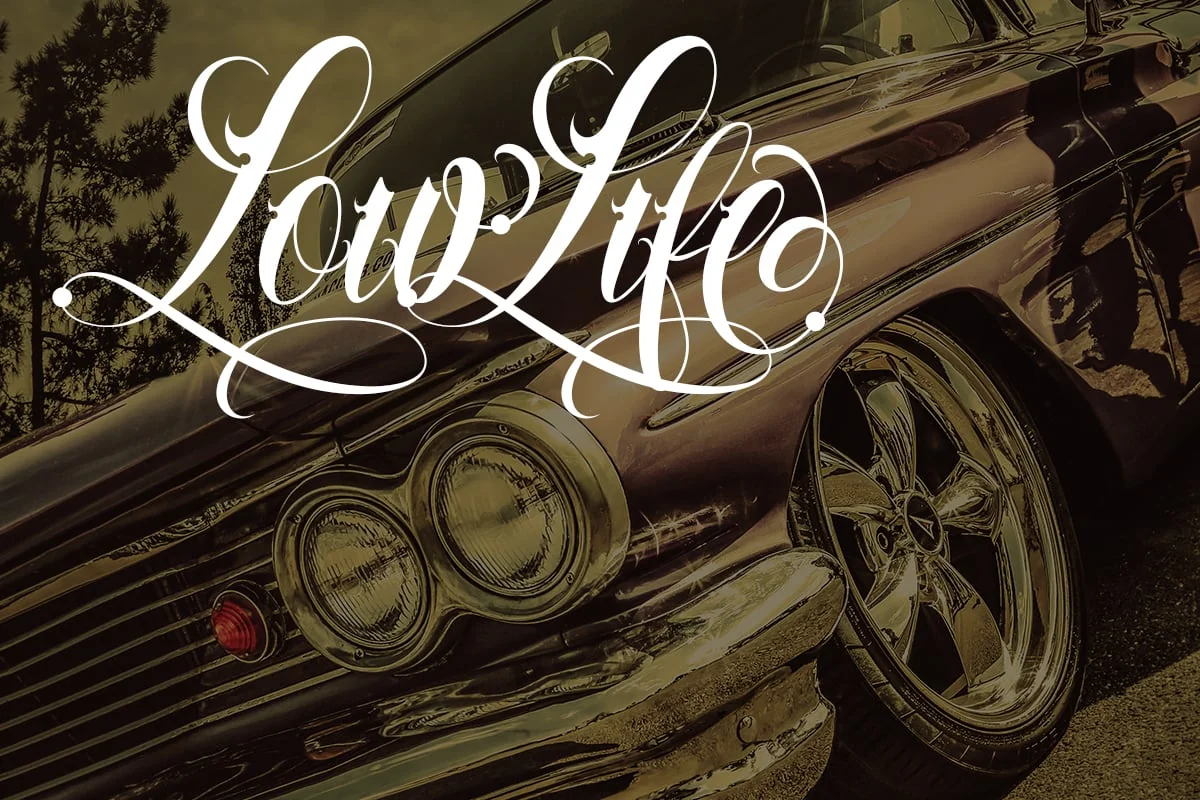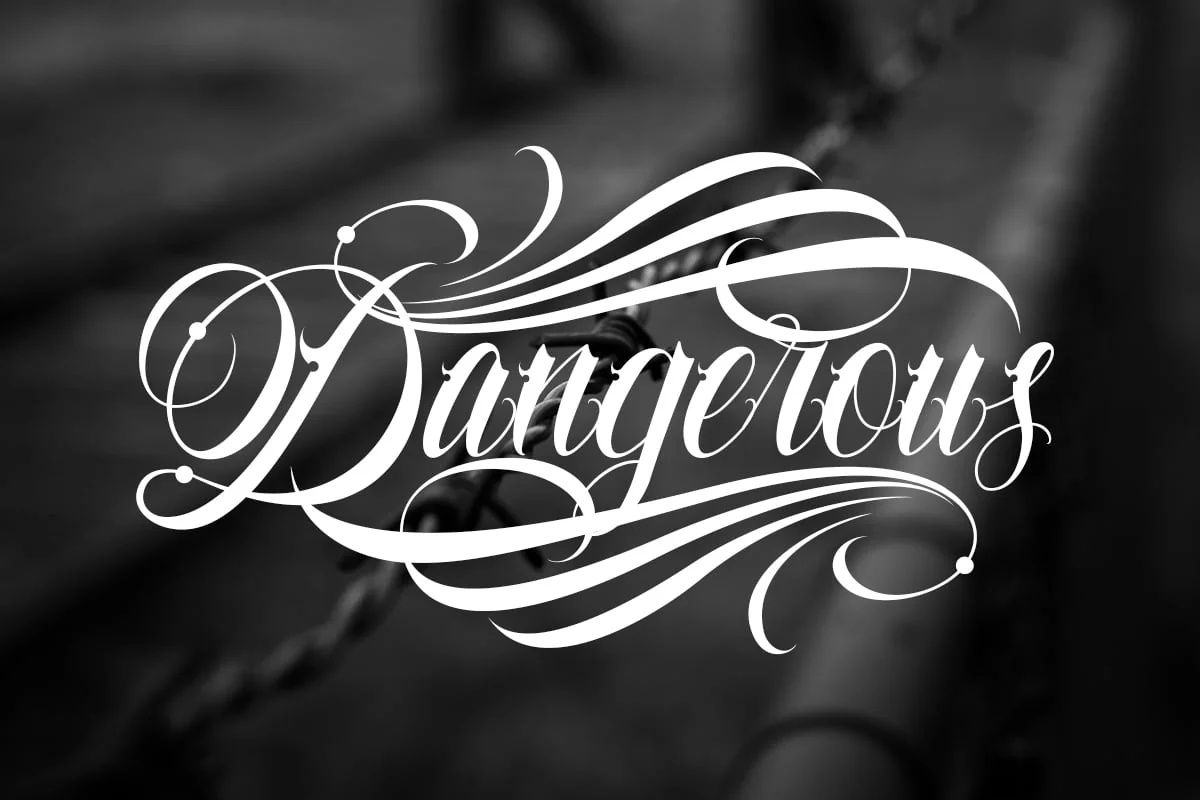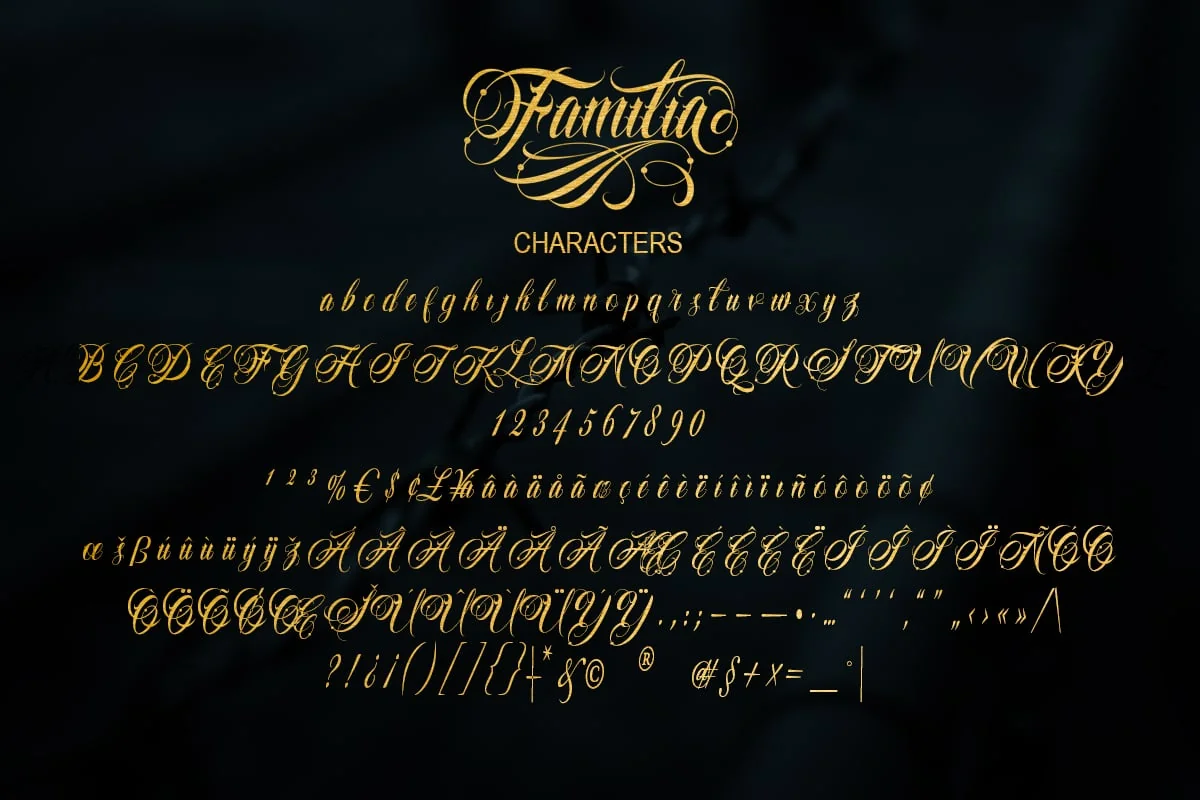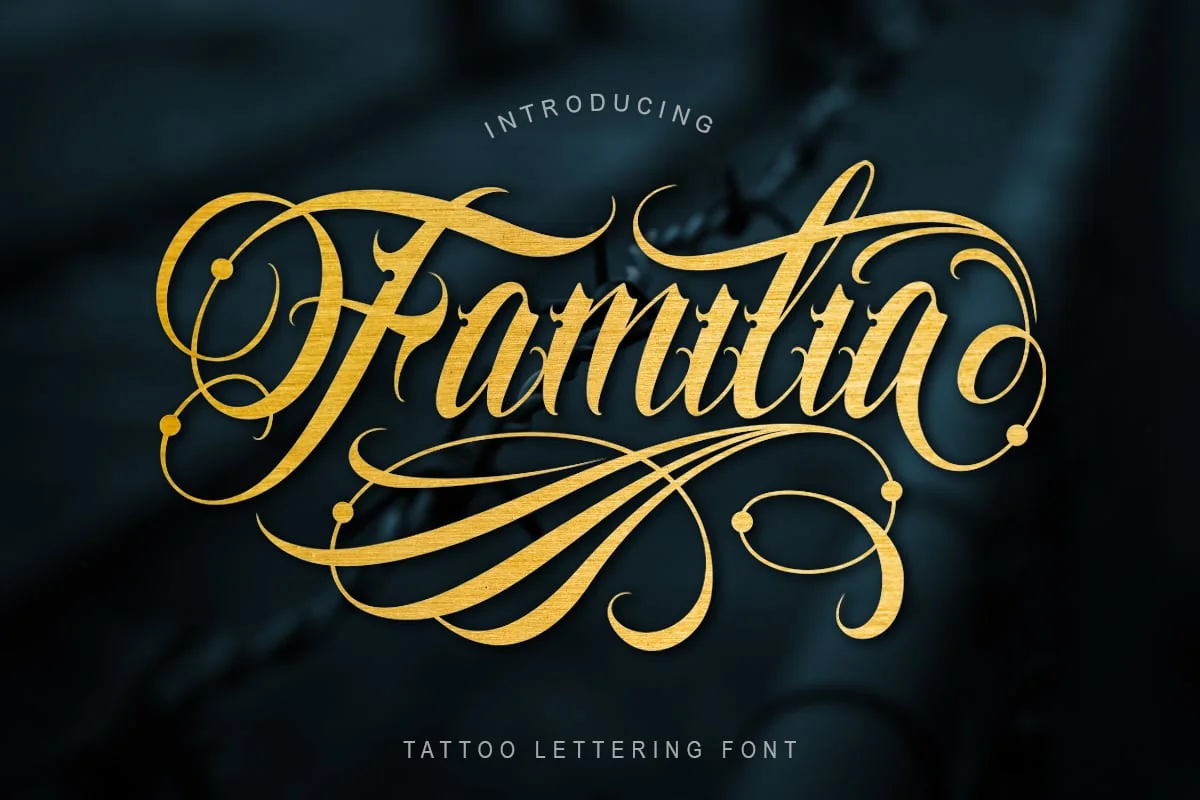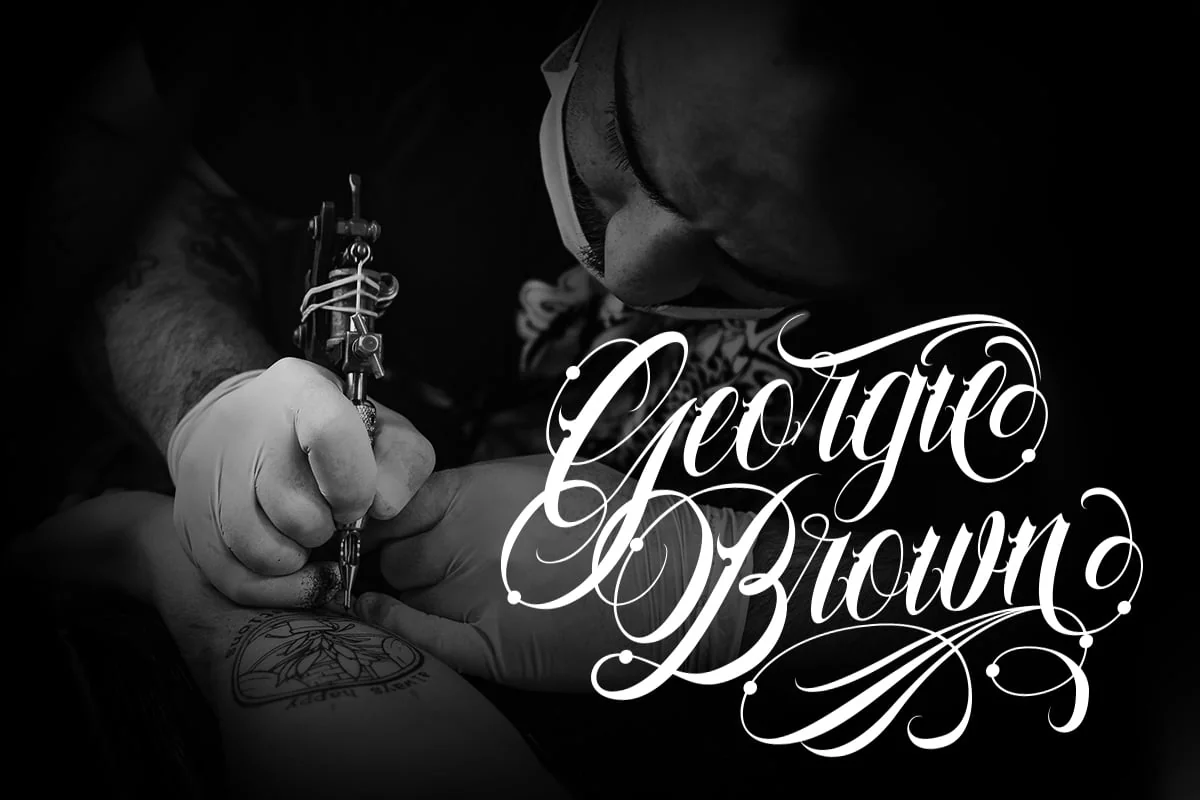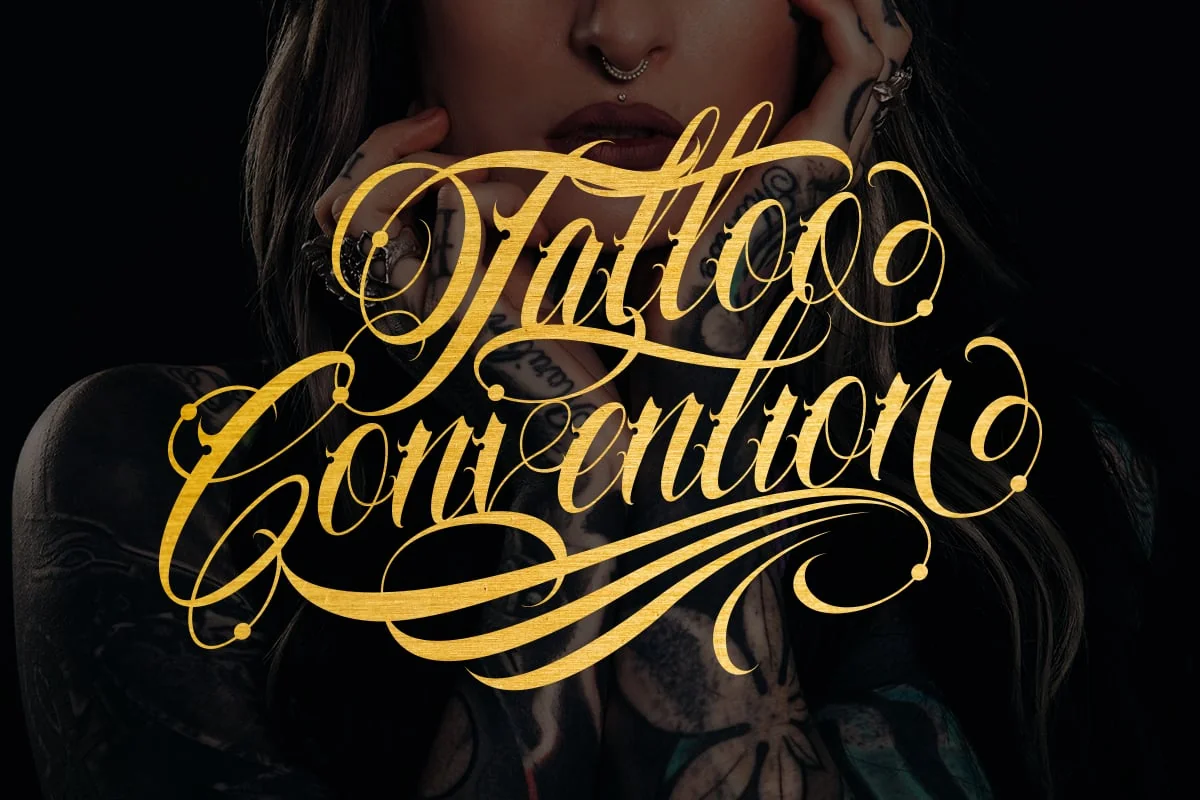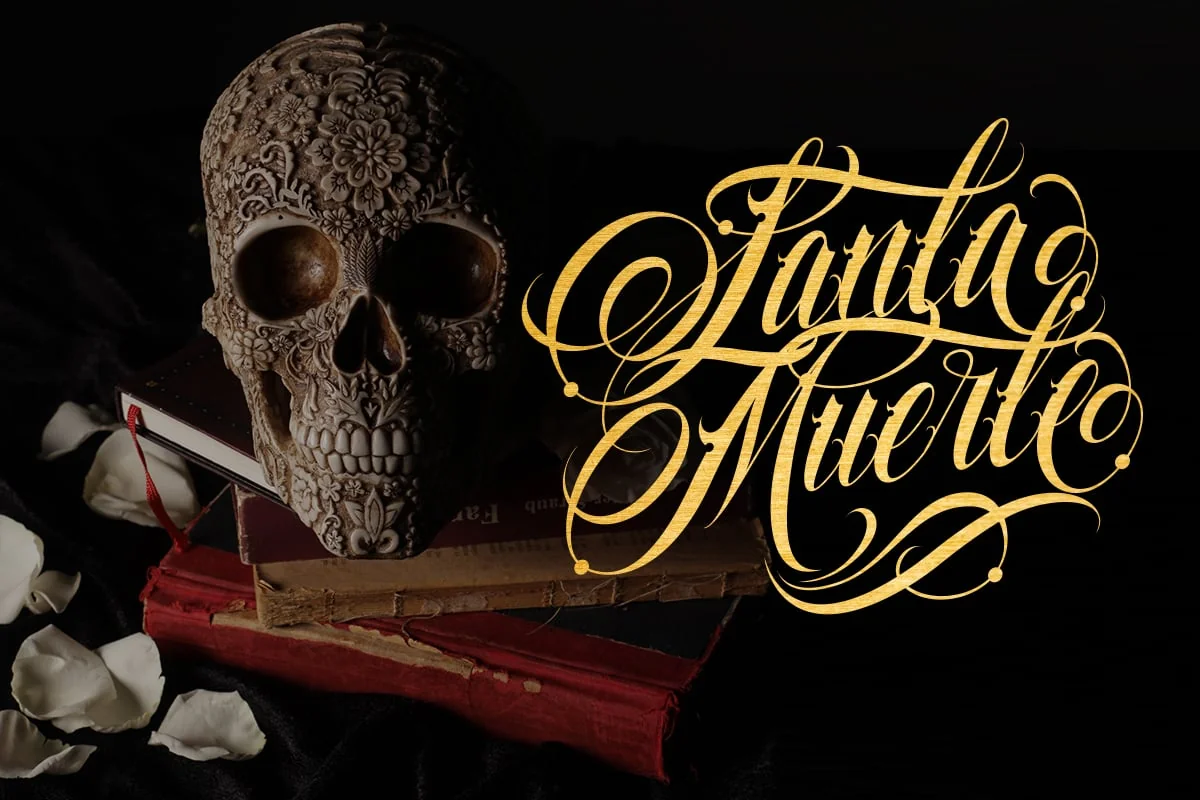
Familia Tattoo Lettering Font
Introducing Familia Tattoo Lettering Font with more details, clean, and more complex. Familia includes uppercase and lowercase letters, numerals, a large range of punctuation, ligatures and multilingual language. All lowercase letters include ending swashes and alternative font.